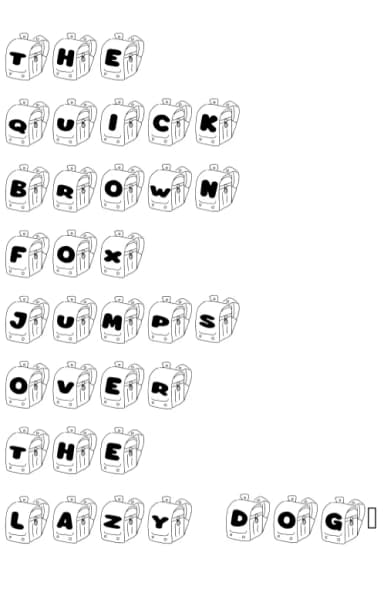
Backpackin by Happy Bamboo is a dingbat collection that prioritizes character over strict iconography. These mark elements function as small illustrations, each carrying design weight and visual personality. When used in a layout, they read as intentional choices that anchor and direct attention, not decorative filler scattered around the page.
This font works particularly well for projects where icons need to do meaningful work. Wedding invitation suites benefit from these marks as embellishment elements that guide the eye and reinforce the event's theme. T-shirt print designs and print-on-demand graphics use them to add layered detail without requiring custom illustration. Event program layouts gain texture from divider marks and title treatments, while small-batch product labels for handmade goods find character-driven options that compete with bespoke drawings. The set maintains coherence as a whole, so mixing marks into existing design systems never feels like you're forcing an awkward fit.
Backpackin Font is a versatile dingbats font that works for both headings and body text. Pair it with a contrasting sans-serif or serif font to add visual interest and a clear distinction between titles and body copy.